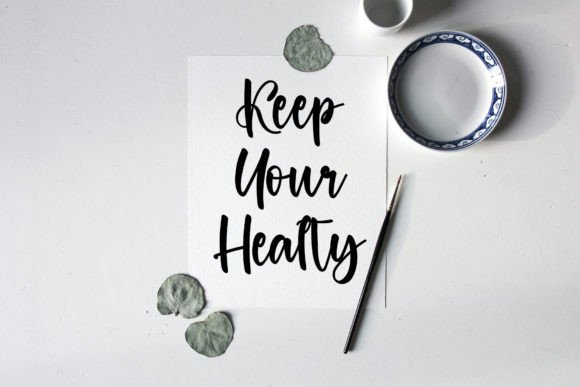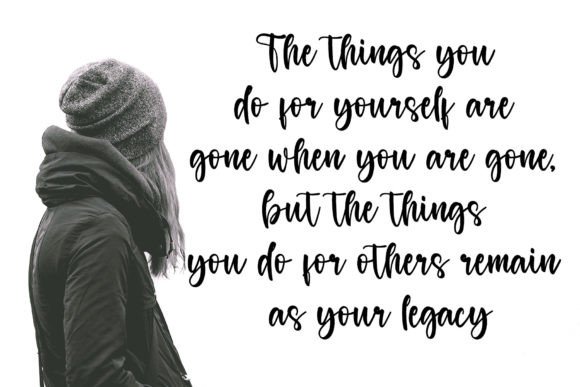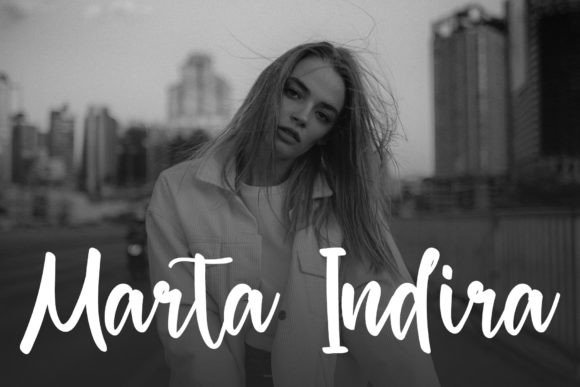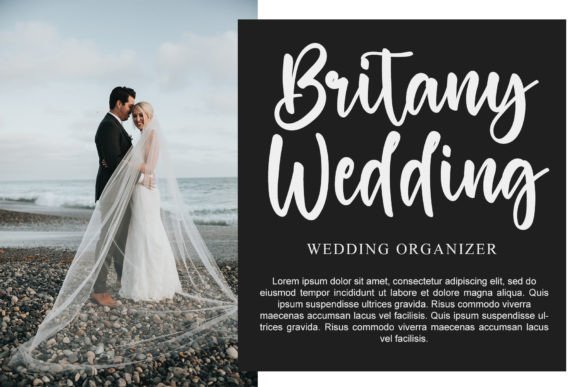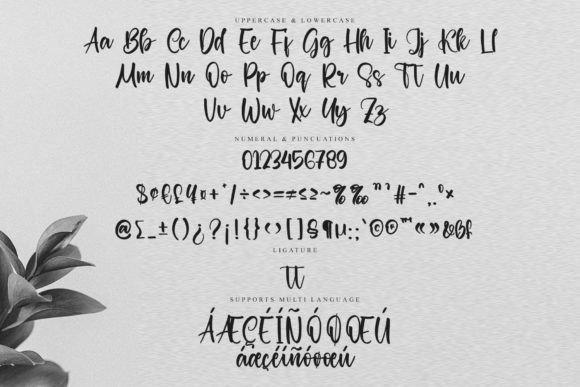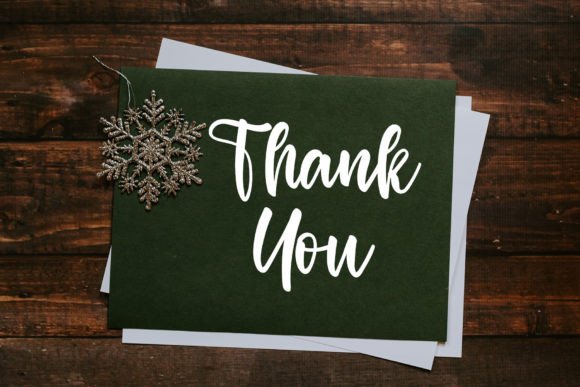
The Perfect Blend: Elevating Your Design with Breading Font
Remember that moment when you stumbled upon the perfect font for your design project? The one that brought everything together, and you couldn’t imagine it any other way? That’s exactly what Breading Font is designed to do – bring a touch of timeless elegance to your creations.
Breading Font is a beautifully crafted handwritten font that exudes a contemporary atmosphere and impeccable form. Inspired by classic calligraphy, it’s the perfect blend of style and sophistication. Whether you’re a seasoned designer or just starting out, this versatile font is sure to enhance the beauty of your projects. With its balanced and varied design, Breading Font is an invaluable addition to any designer’s toolkit.
- Character Set: This font includes a comprehensive character set, covering Latin, Cyrillic, and Greek alphabets, as well as a range of punctuation marks and symbols.
- Unique Characteristics: Breading Font features a unique blend of modern and vintage elements, with intricate details and ornate flourishes that set it apart from more conventional fonts.
- Font Width: Breading Font has a medium to wide width, making it suitable for use in headings, titles, and other display text where a more dramatic effect is desired.
Breading Font Review
Overall, I think Breading Font has some unique qualities that make it stand out. Here are a few things that I think work well:
- ✨ Unique aesthetic: The font has a distinctive, hand-drawn feel that’s perfect for projects that need a bit of personality.
- ✨ Good for creative industries: Breading Font’s quirky style makes it well-suited for creative fields like design, advertising, and fashion.
- ✨ Wide character set: The font includes a wide range of characters, including punctuation and special symbols.
- ⚠️ Limited legibility: In smaller sizes, the font can be difficult to read, especially for longer blocks of text.
- ⚠️ Not ideal for body text: Due to its playful style, Breading Font is best used for headlines or other short pieces of text.
- ⚠️ Limited language support: While the font includes a wide character set, it may not support all languages or character sets.
Overall, I think Breading Font is a great choice for projects that need a bit of personality and flair. Just be sure to use it sparingly and in the right context to avoid any readability issues.
Breading Font is commonly used for creating visually appealing text elements in designs, presentations, and documents. It is particularly useful for creating headings, titles, and other attention-grabbing text elements.